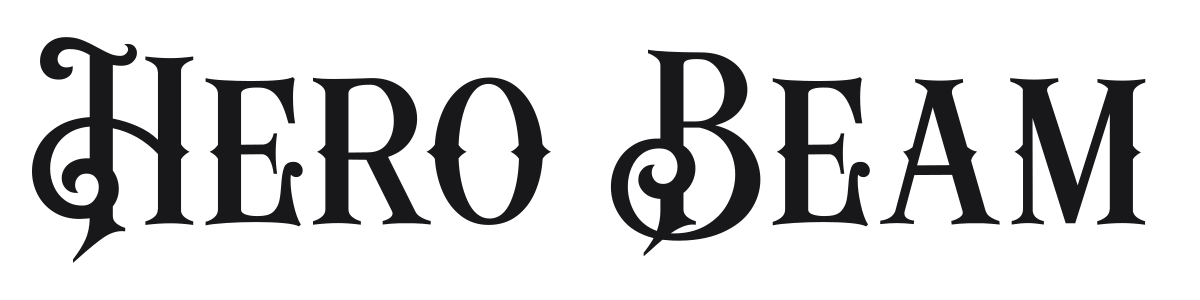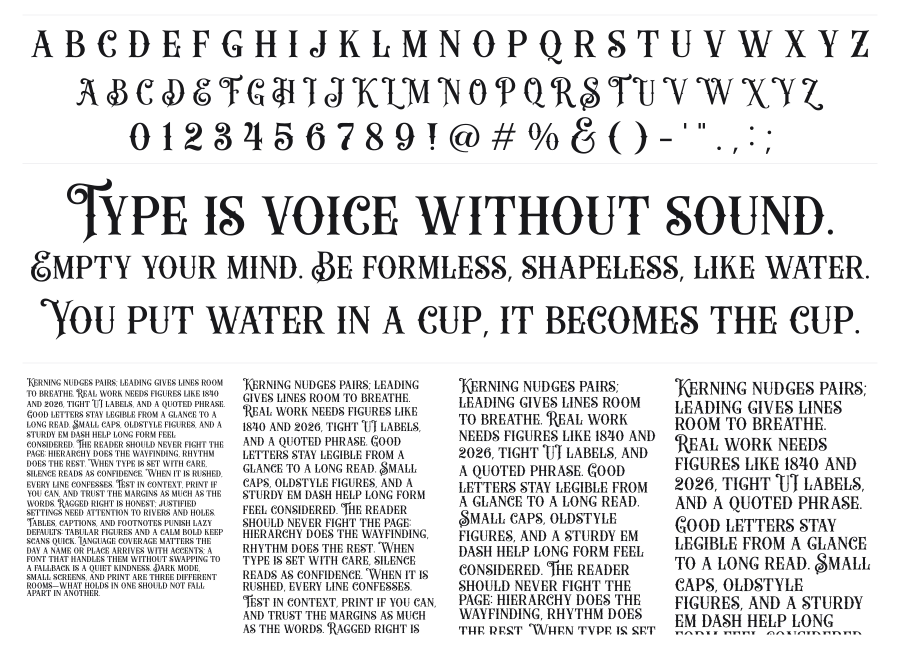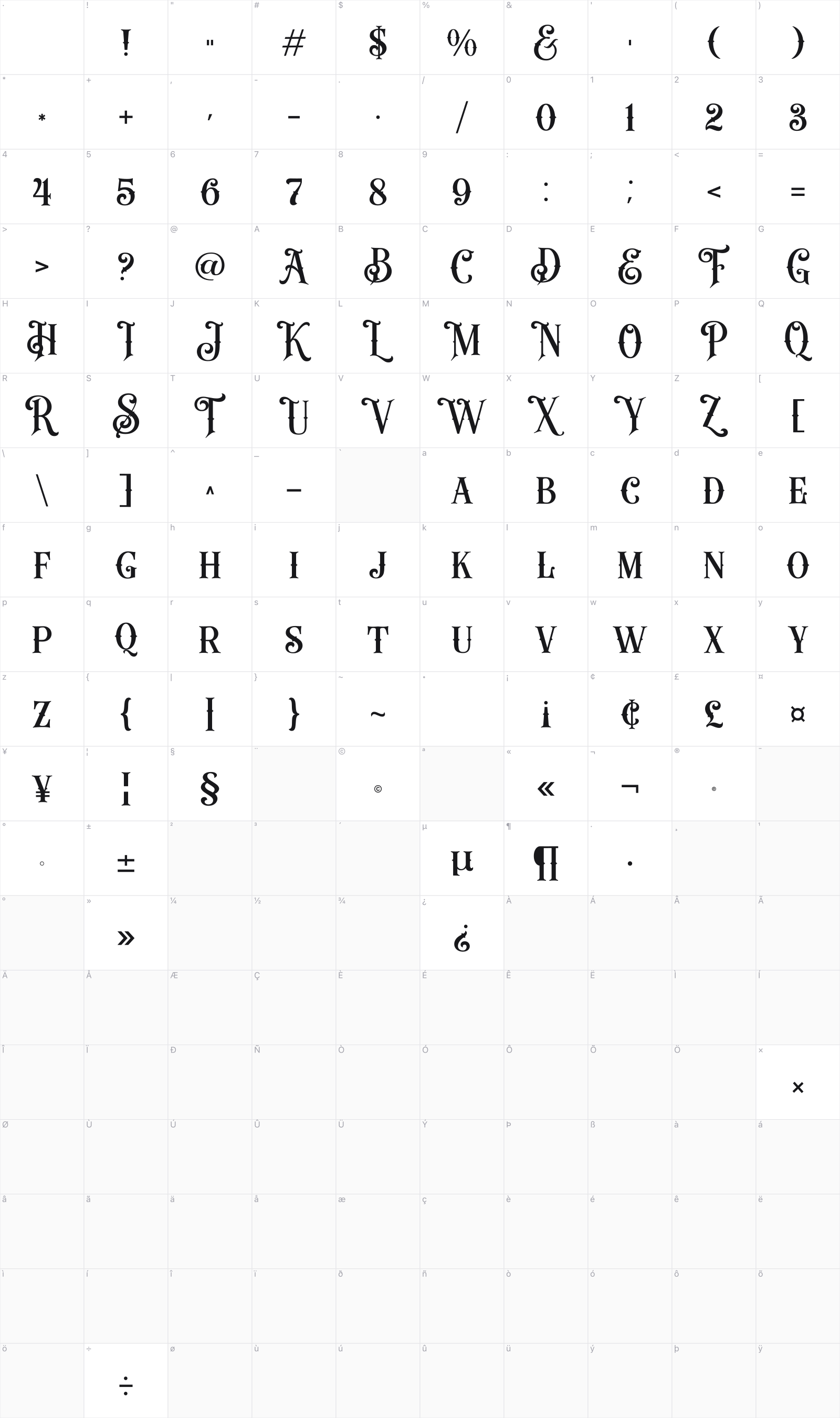
Hero Beam
Hero Beam is a condensed ornate serif with dramatic stroke contrast and Victorian-era decorative details embedded directly into its stems. Curled terminals and swelling inline flourishes push it firmly into display territory, evoking 19th-century poster type and wood-type broadside printing. It carries real visual weight and personality at headline sizes.